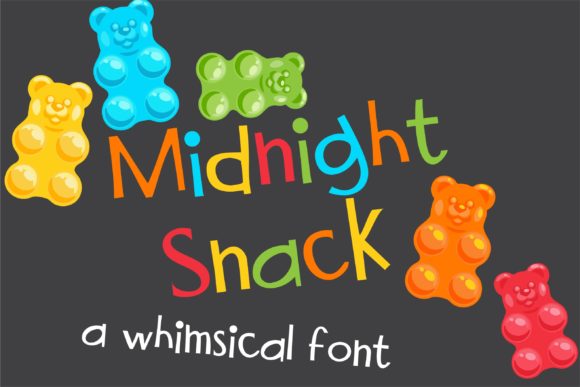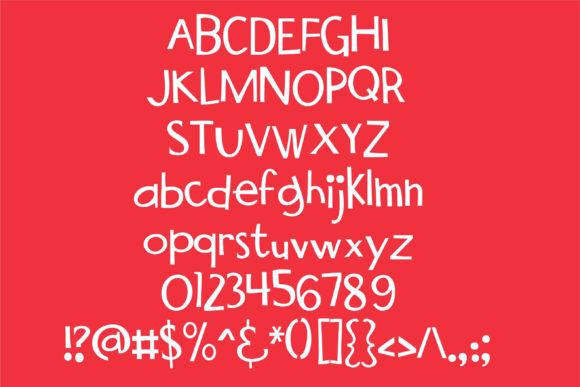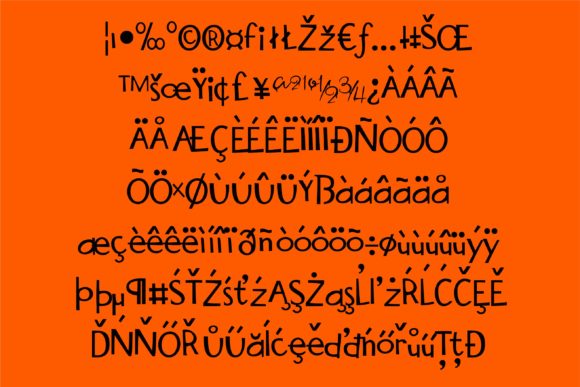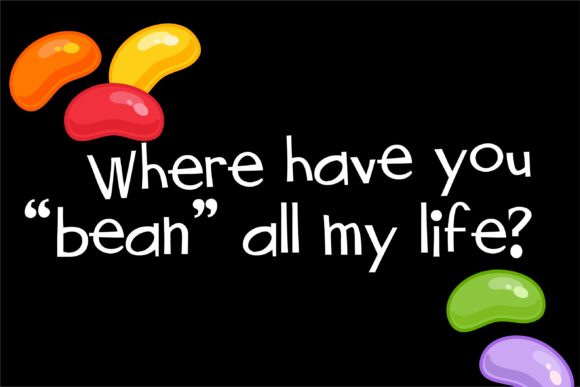
Midnight Snack Font: A Cute Sans Serif for Playful Designs
About the Midnight Snack Font
Experience the unique personality of Midnight Snack Font, a font designed for impact. Midnight Snack is a deliciously playful sans serif font with a cute vibe. It will add a whimsical feel to any project in an instant!
Midnight Snack’s playful character makes it ideal for headlines, short text blocks on packaging, and children’s book illustrations. Its whimsical charm also works well in social media graphics and branding for companies with a fun, approachable image. However, avoid using it for body text or lengthy paragraphs; its informal style can become difficult to read at smaller sizes.
Consider pairing Midnight Snack with a clean sans-serif like Open Sans for body copy to balance its playful energy, or a classic serif like Garamond for a sophisticated contrast. For a more playful pairing, a rounded geometric sans-serif would create a cohesive, friendly feel.
The font’s overall personality is best described as friendly and whimsical, making it suitable for brands targeting a younger demographic or projects requiring a lighthearted and approachable aesthetic.